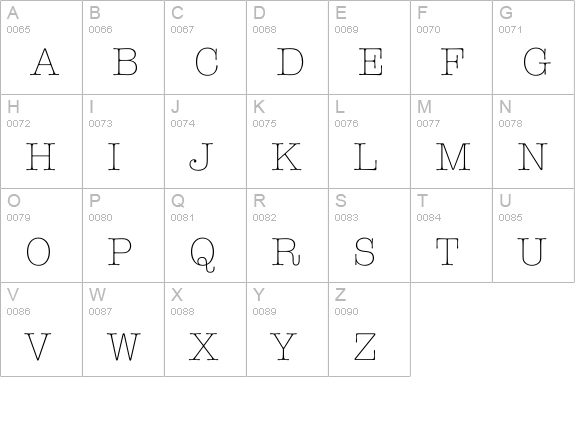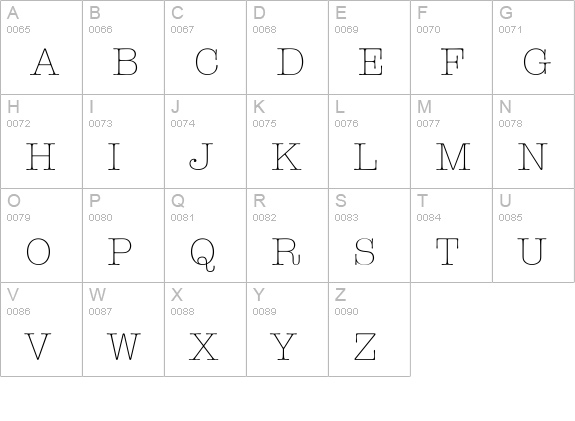
RomtypewriterLight Font Details
RomtypewriterLight font is a charming and versatile typeface that brings a touch of vintage elegance to any design project. With its classic typewriter-inspired style, this font exudes a sense of nostalgia while maintaining a modern appeal. The clean lines and subtle curves give RomtypewriterLight a timeless quality that is perfect for a wide range of applications, from branding and packaging to editorial design and web graphics. What makes RomtypewriterLight even more appealing is that it is available for free download at FontsMarket.com. This means that you can easily access this beautiful font and use it in your projects without any cost. Whether you're a seasoned designer looking to add a new font to your collection or a beginner in need of a stylish typeface, RomtypewriterLight is a fantastic choice that won't break the bank. Download it today and elevate your designs with this elegant and versatile font.